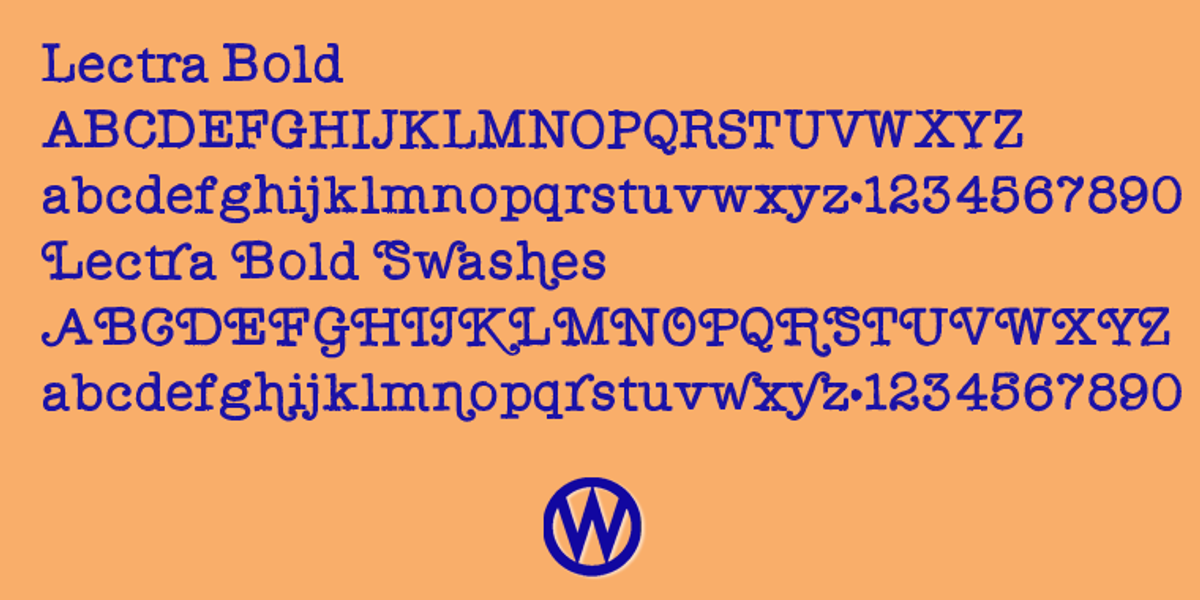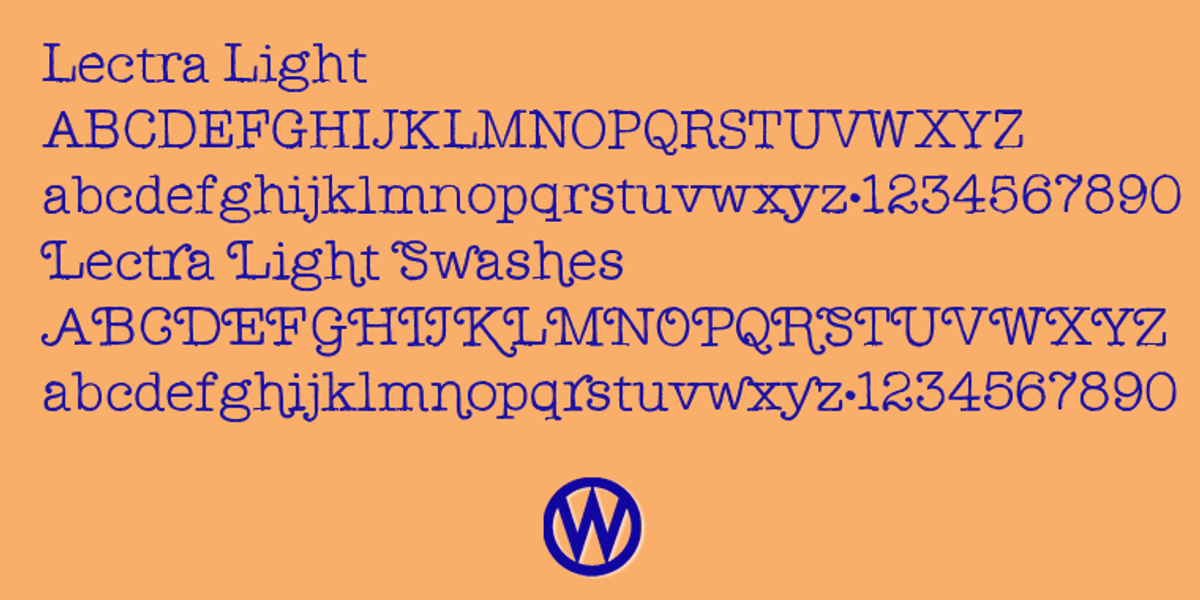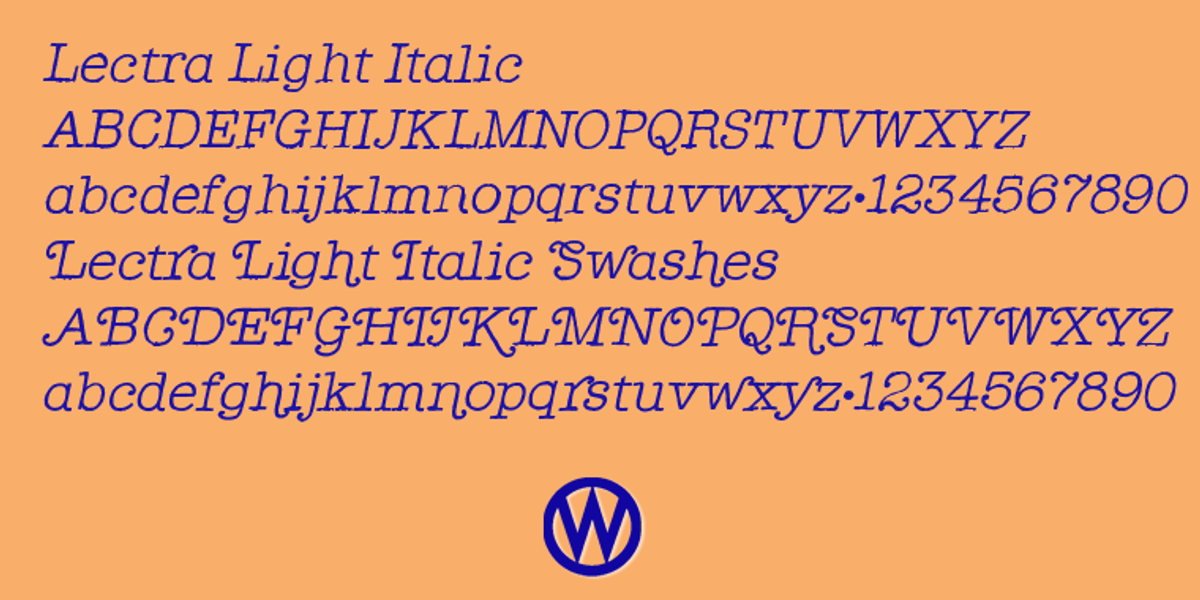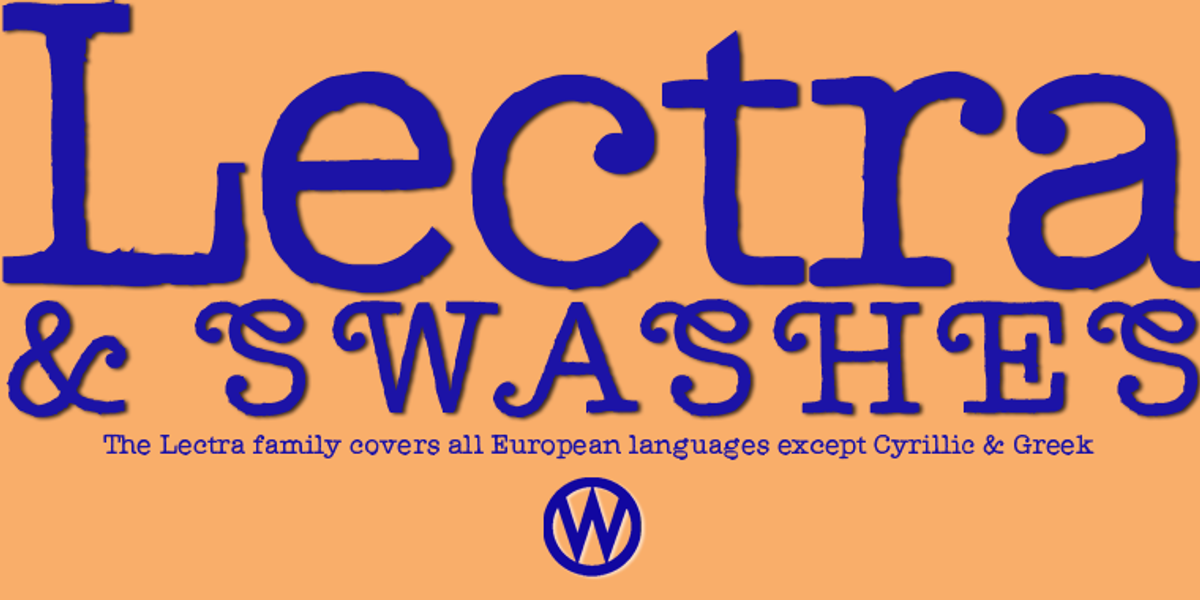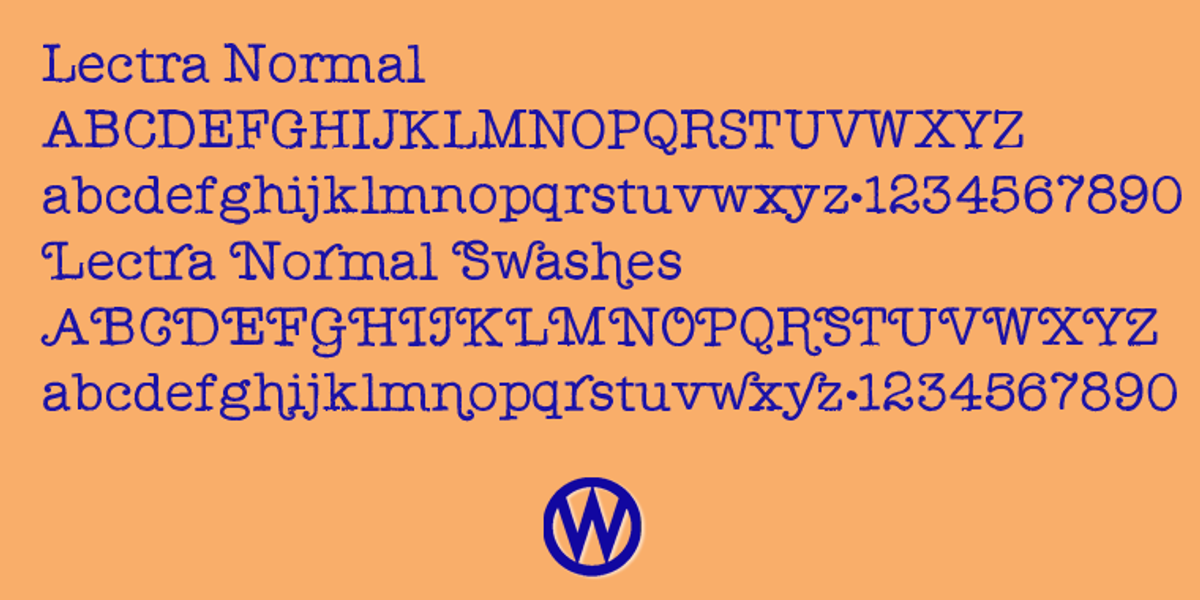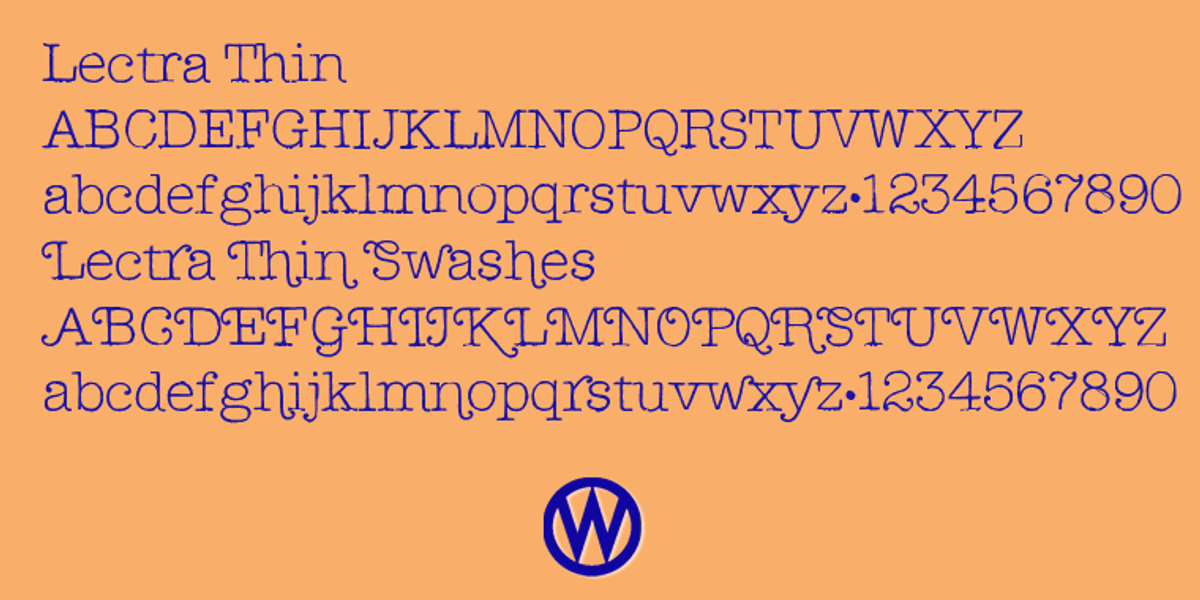
LectraBold
Lectra is a typewriter-style font that stands out with its inclusion of swash characters. This gives it a more decorative and distinctive look compared to typical typewriter fonts. Its rough and masculine personality makes it suitable for retro-themed designs like posters and greeting cards. The font comes in five normal weights and also features five swashed variations.